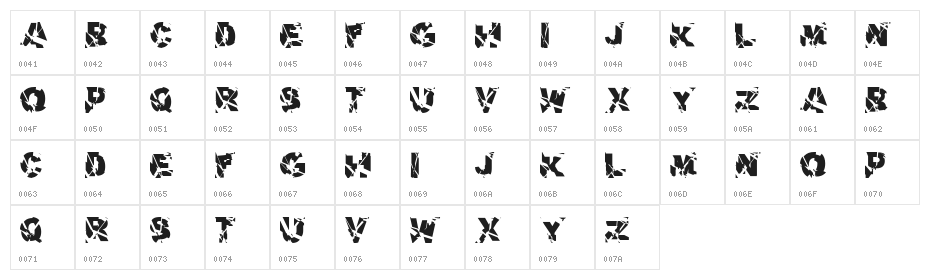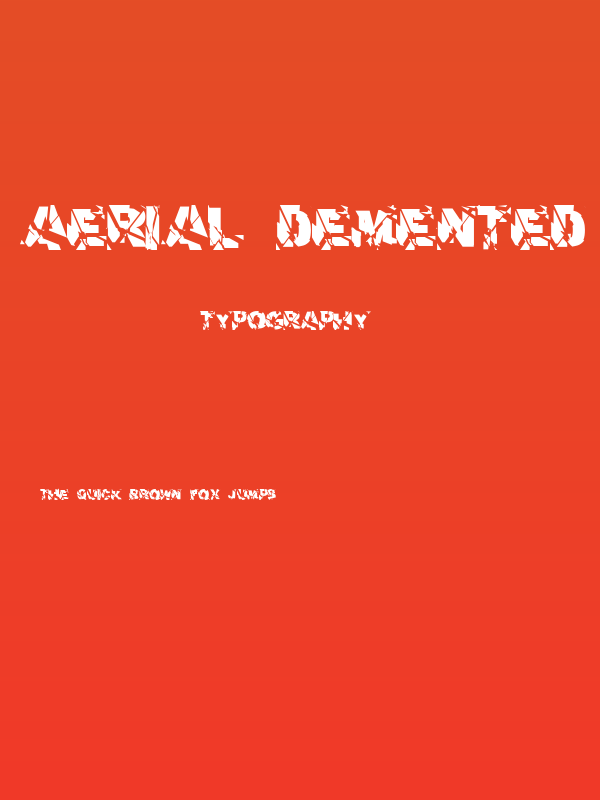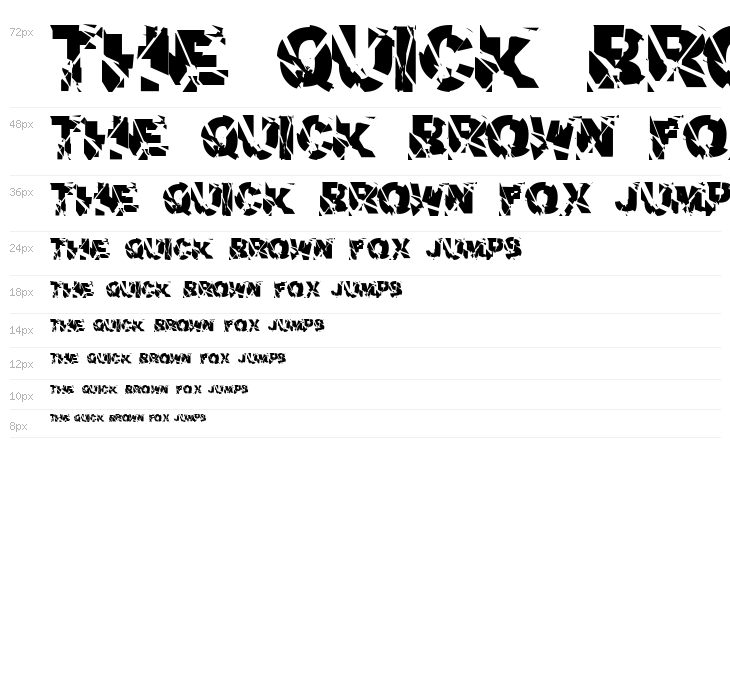
aerial demented Font
aerial demented Description
This font features a highly fragmented and distressed appearance, with each character appearing as if it has been shattered into numerous pieces. The design is bold and striking, with a chaotic yet structured aesthetic that draws attention. The jagged edges and irregular shapes create a sense of movement and energy, making it ideal for projects that require a dramatic and unconventional look. The uppercase and lowercase letters maintain consistency in style, ensuring readability despite the complex design. This font is perfect for creating impactful headlines, posters, and artistic designs that need a touch of edginess.
| Use Case | Headlines, Posters, Artistic Designs |
| Proposed Projects | Ideal for edgy posters, dramatic headlines, and artistic designs. |